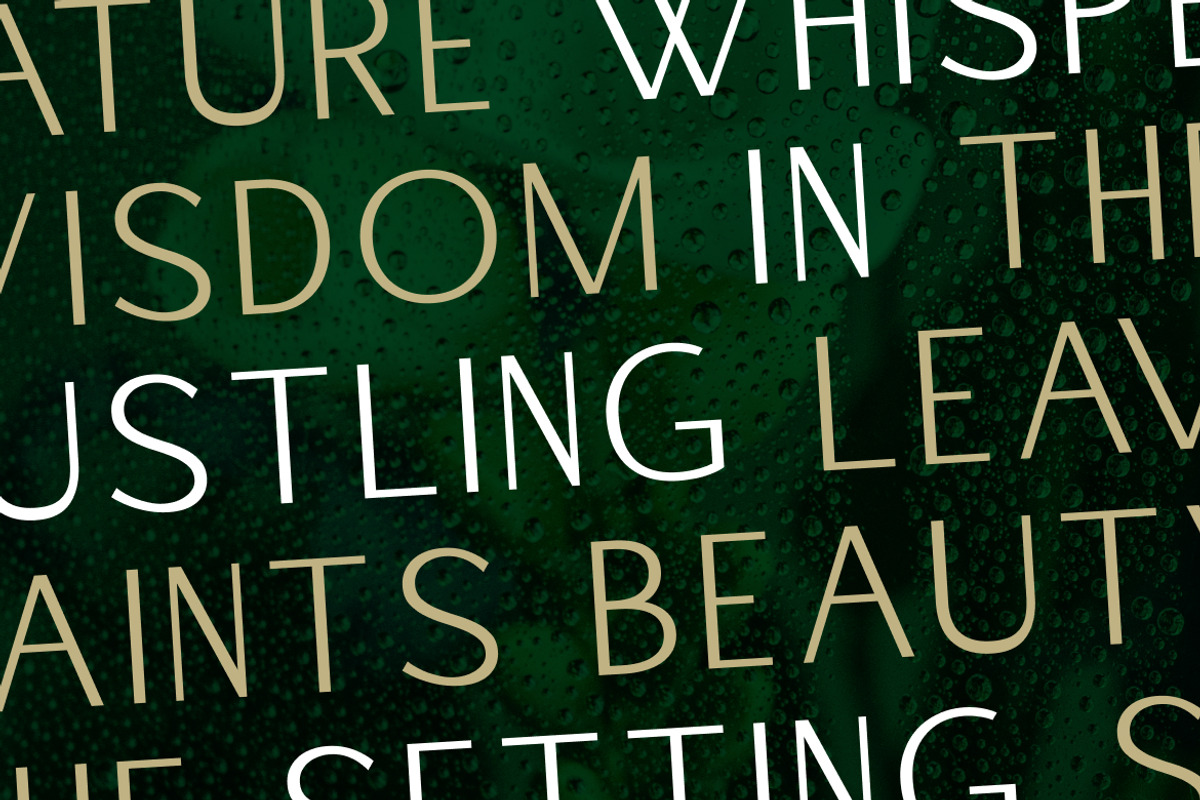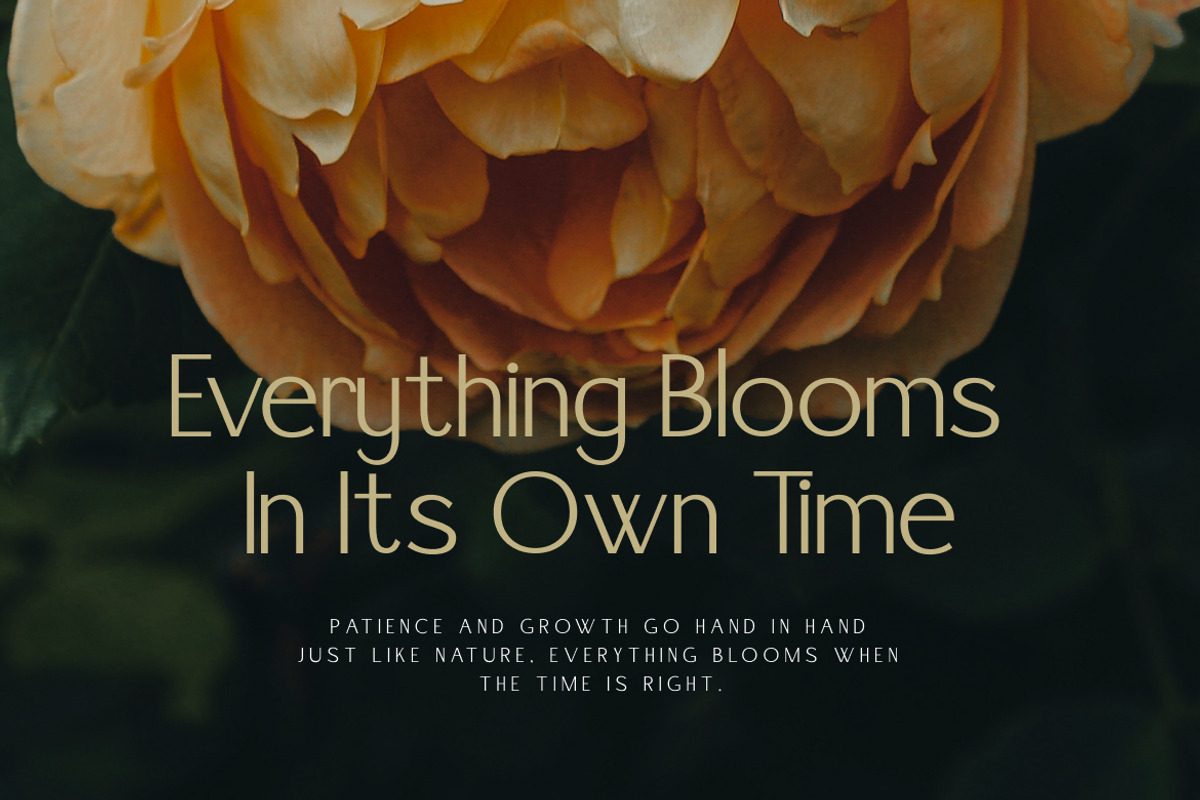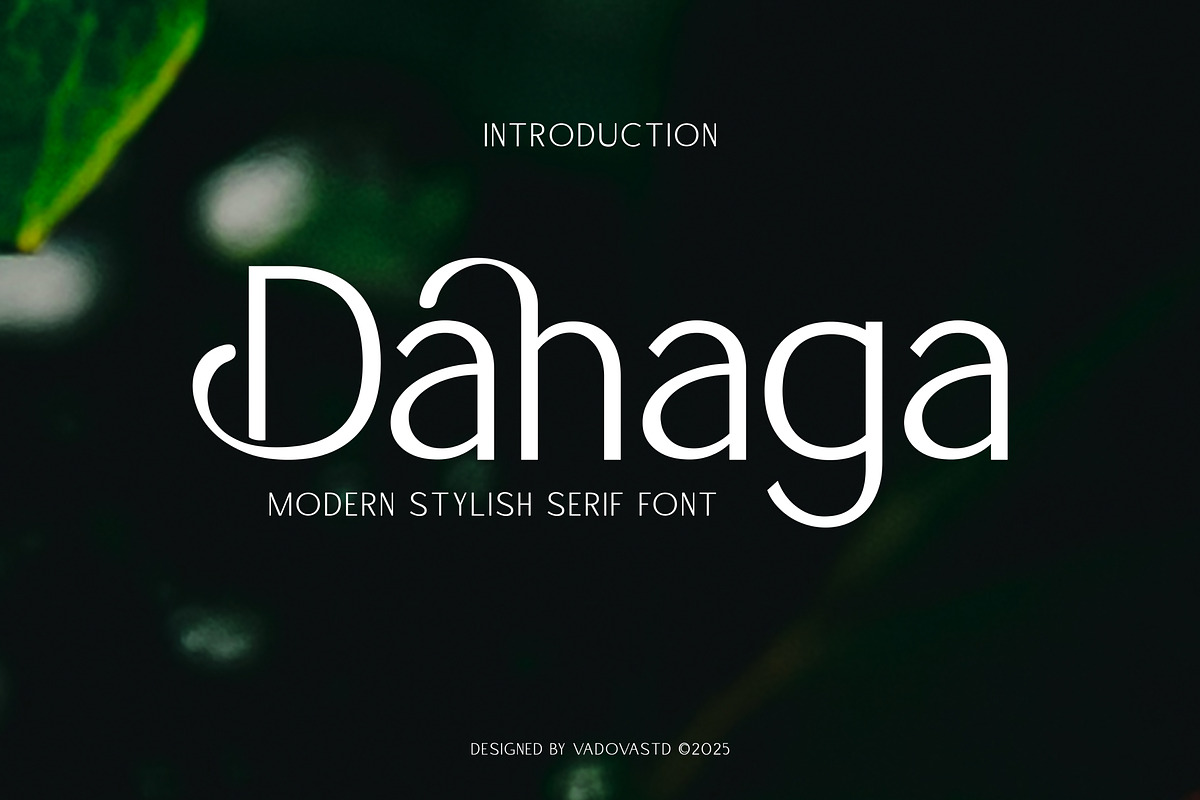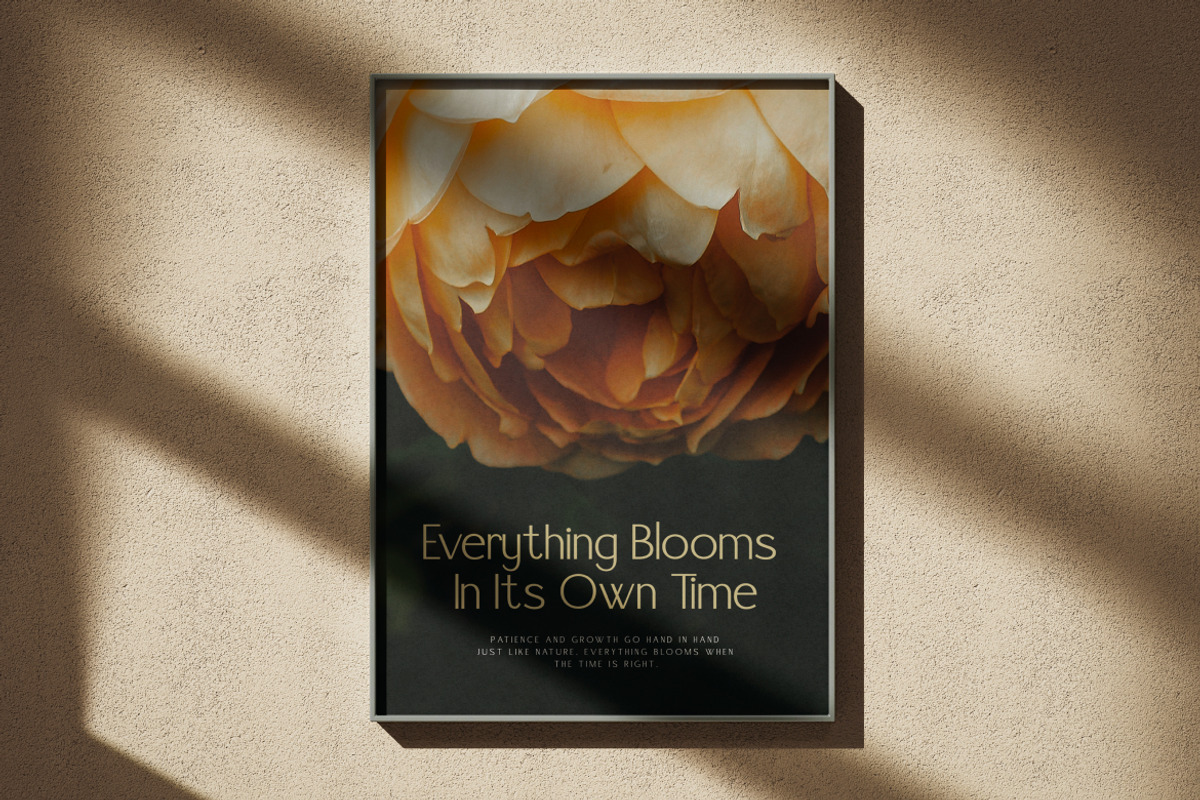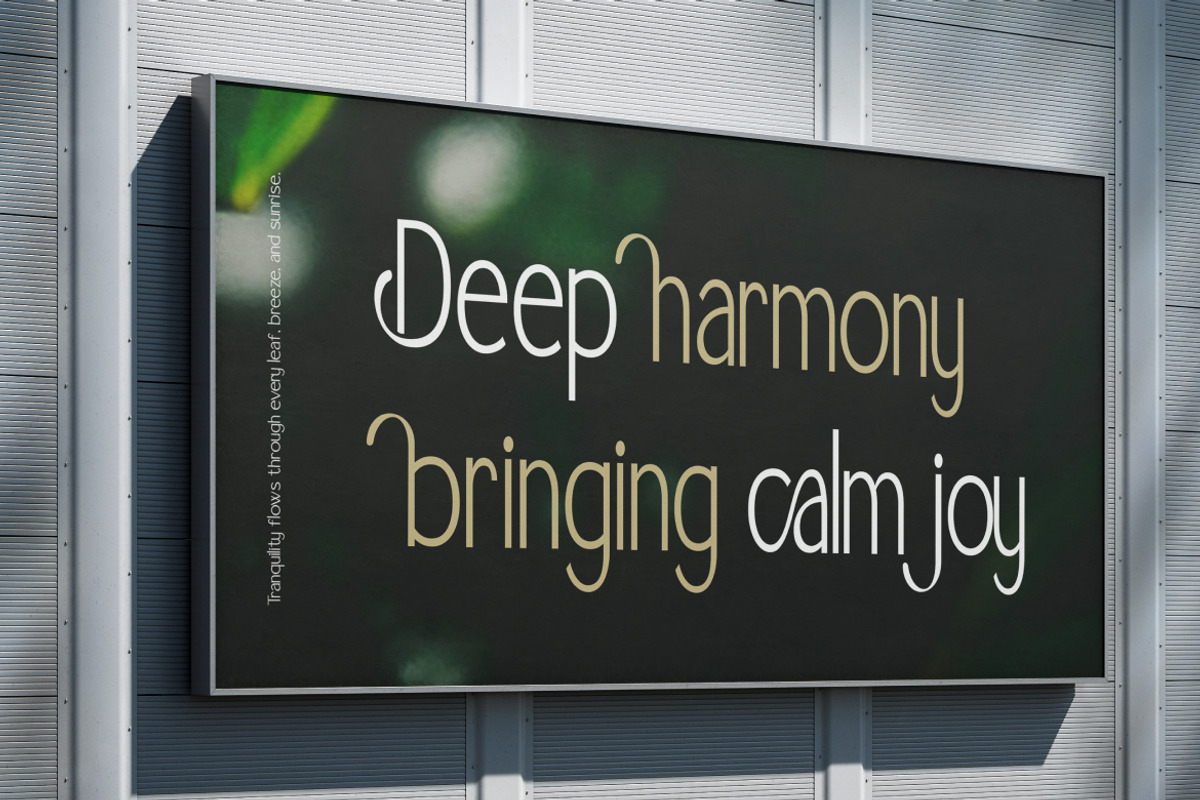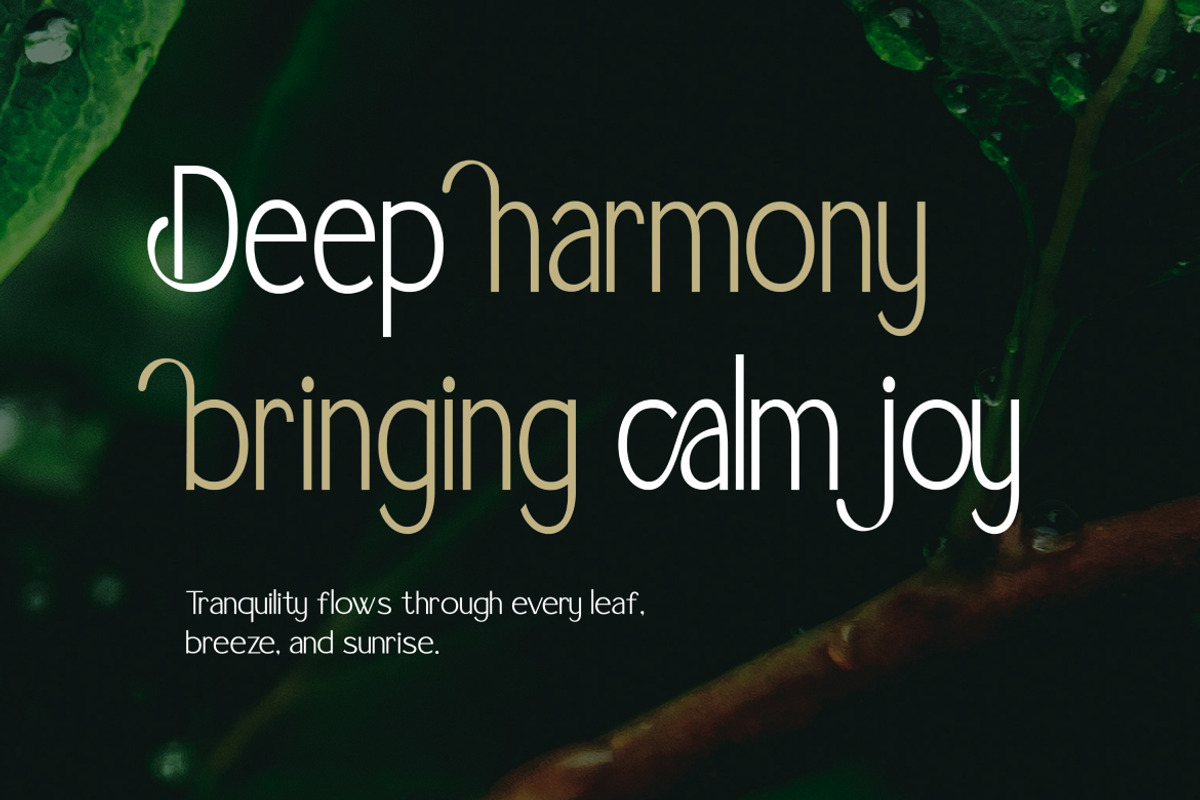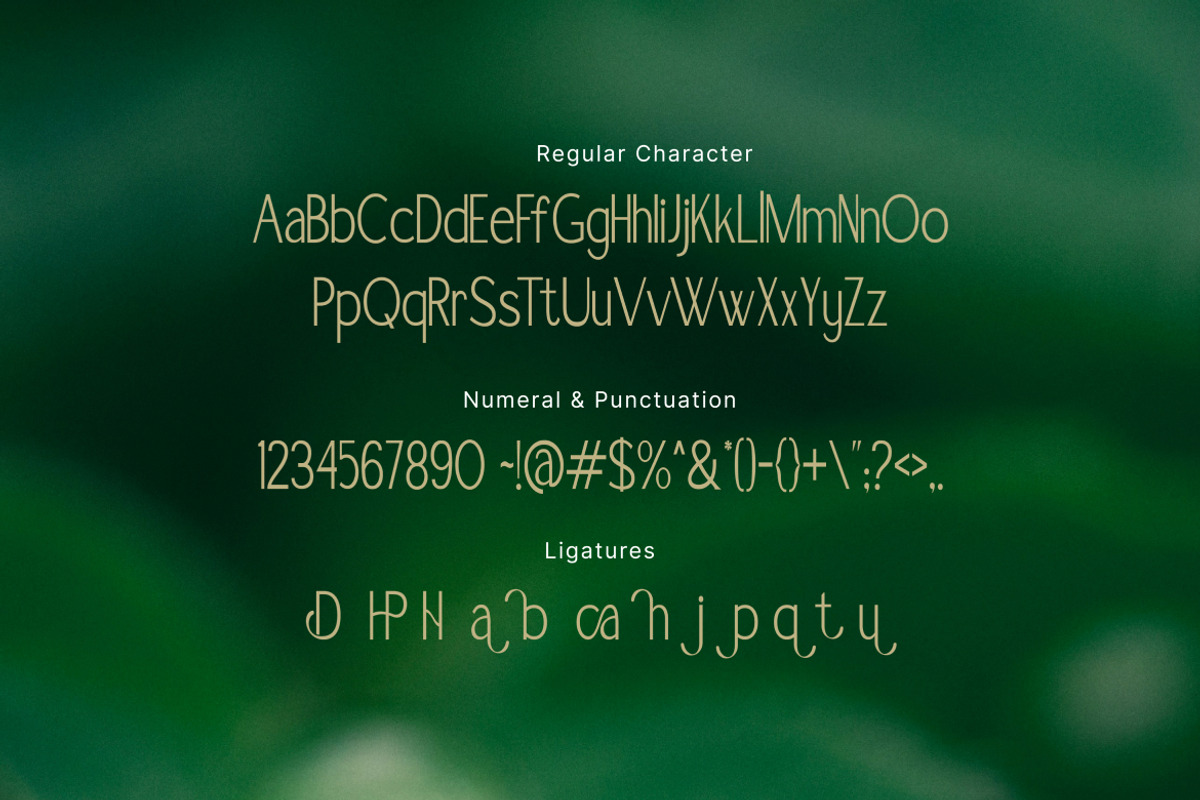
Dahaga – Modern Stylish Sans Serif
Dahaga is a modern stylish sans serif font designed to bring a sense of clarity, elegance, and versatility into your design projects. Its sleek lines and balanced proportions make it stand out as a contemporary typeface while keeping a timeless aesthetic that feels professional yet approachable.
This font carries a clean sans serif structure with subtle stylish touches on certain letterforms, giving it a unique character that makes your design look distinctive without being overwhelming. The smooth, legible curves create a modern visual flow, ideal for creative professionals who want a font that is both versatile and sophisticated. Dahaga fits perfectly into today’s market vibe — from social media branding and minimalist packaging to editorial layouts, corporate identities, and creative portfolios.
Why Designers Love Dahaga:
Clean sans serif letterforms with stylish decorative accents.
Combines elegance with modern simplicity.
Highly legible in both small and large sizes.
Versatile for branding, digital, and print projects.
Professional yet creative personality.
Bring a fresh, modern touch to your projects with Dahaga, the stylish sans serif that blends professionalism and creativity in every stroke. Perfect for designers who want to stay ahead of trends while keeping their designs timeless and memorable.